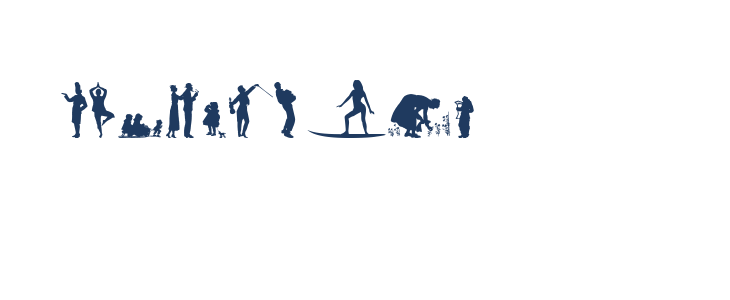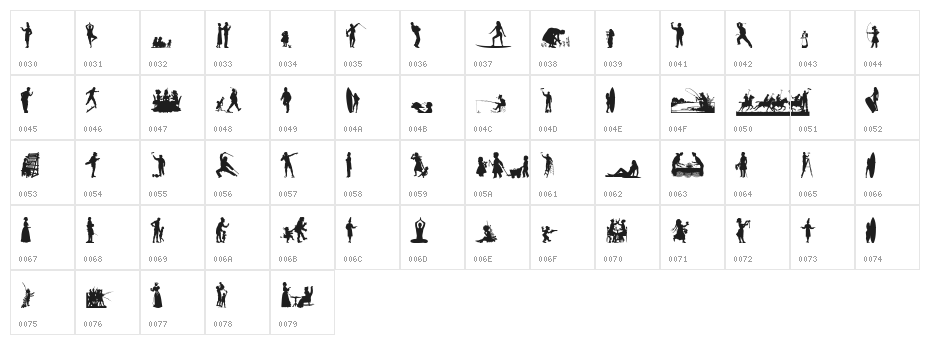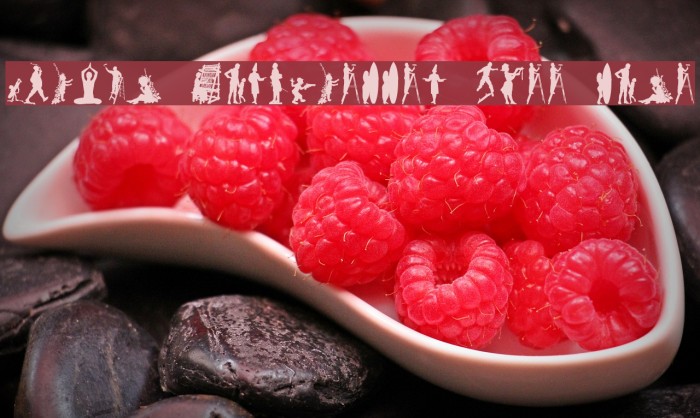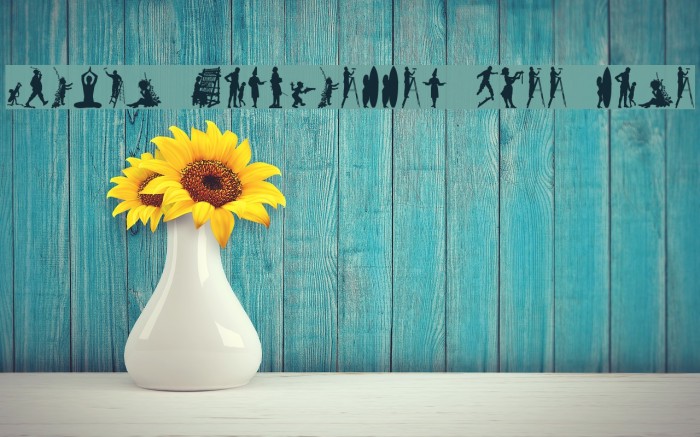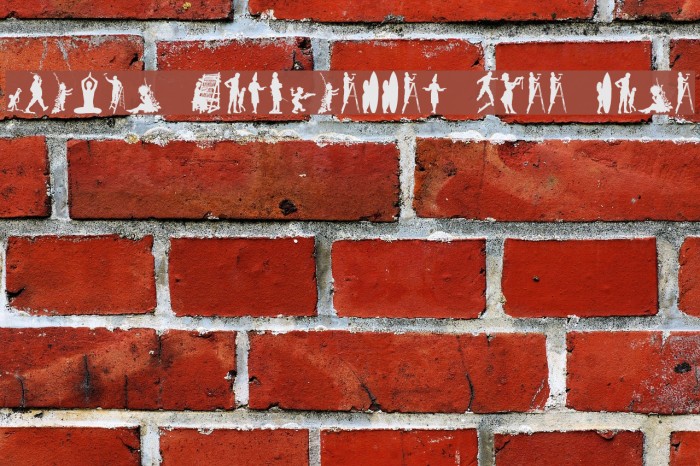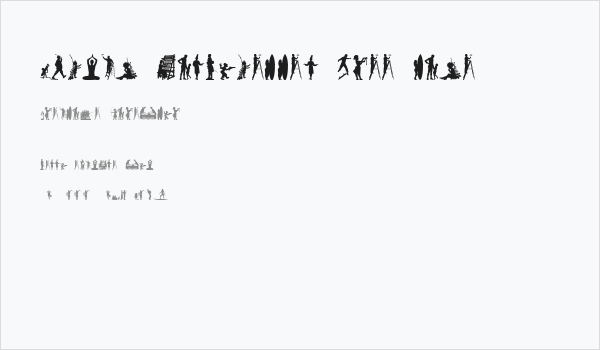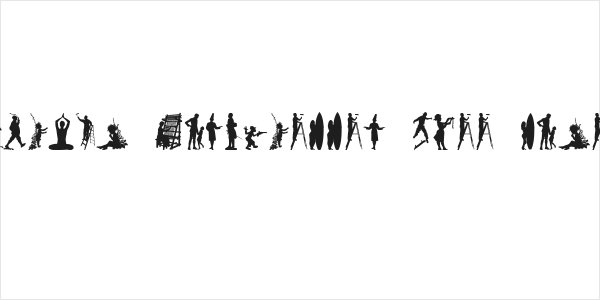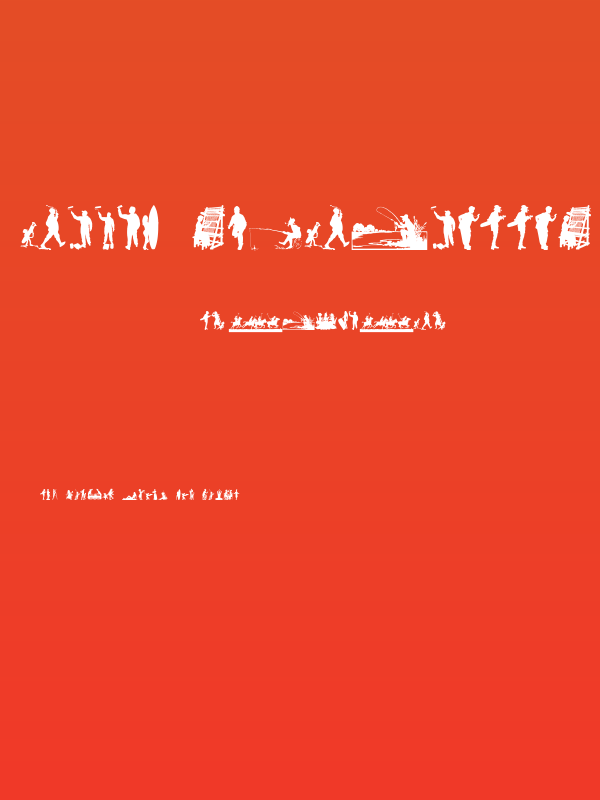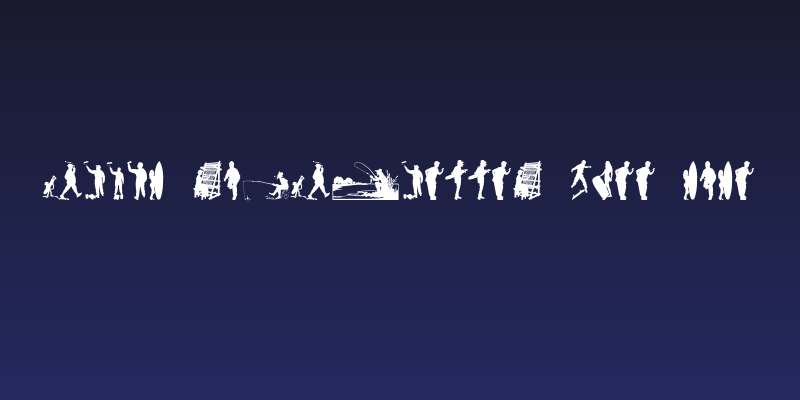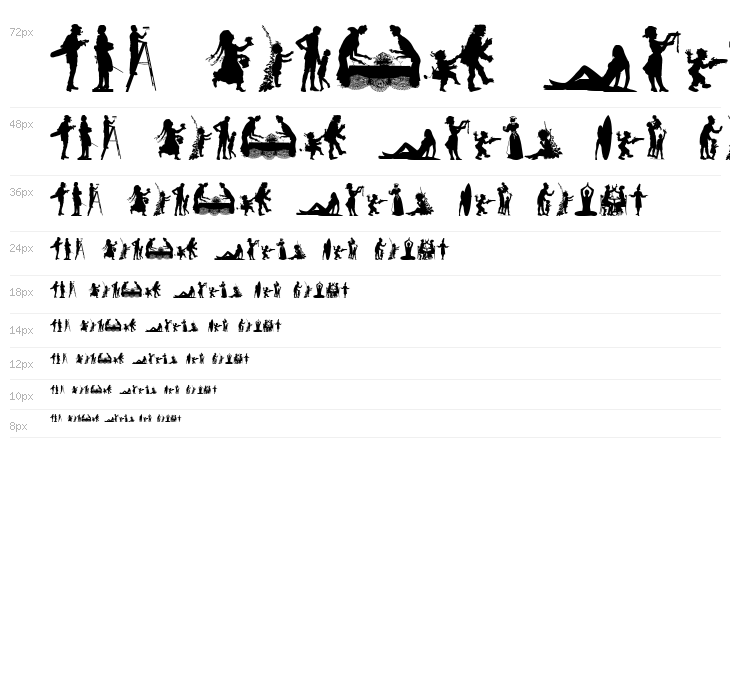
Human Silhouettes Free Nine Font
Human Silhouettes Free Nine Description
A collection of black human silhouette figures depicting various activities and poses, including sports, leisure, work, and social interactions. The silhouettes are solid black with no internal details, emphasizing shape and posture.
| Overall Style | Decorative and illustrative |
| Use Case | Visual storytelling, icons, thematic design elements, infographics |
| Proposed Projects | Use in graphic design, posters, educational materials, storytelling visuals, and thematic decorations. |